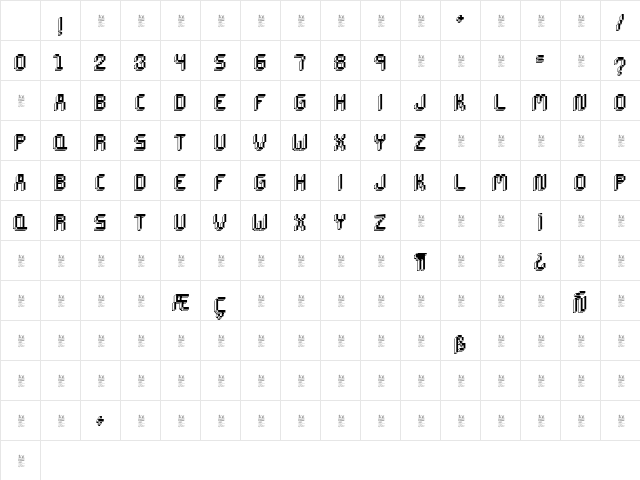
Complete CHIP TUNES SHADOWS glyph index. Displaying only characters natively supported by CHIP TUNES SHADOWS font.
CHIP TUNES is built around its visual character rather than neutral utility - its distinctive forms are designed to make an impression at display sizes.
Font Pairing: Pair with a clean neutral sans-serif for body copy to let CHIP TUNES's character lead without overwhelming the composition.
Pro Tip: Use CHIP TUNES exclusively at display sizes - it was designed to be seen, not read at length. Let a neutral companion handle body copy.